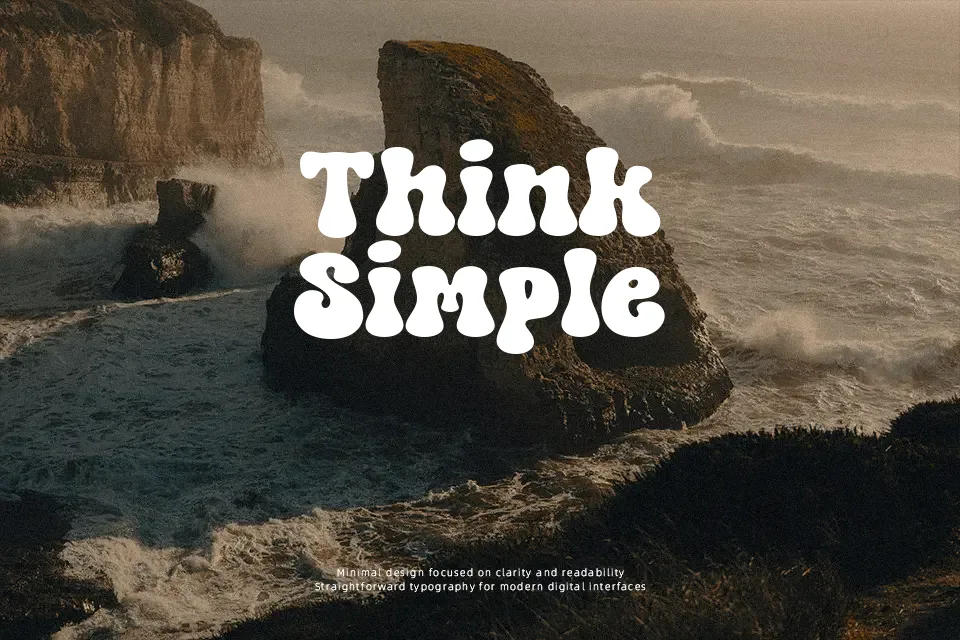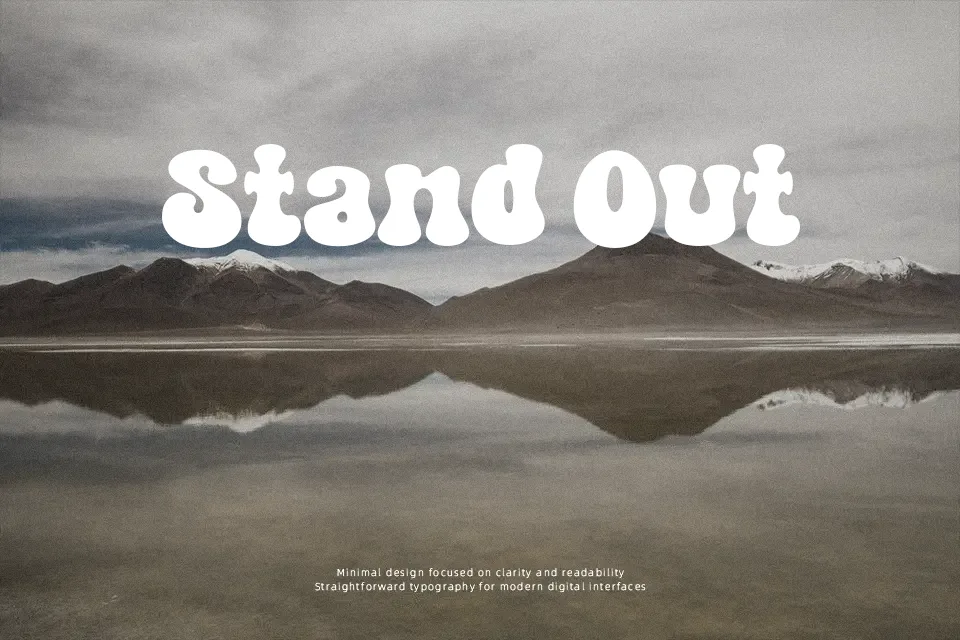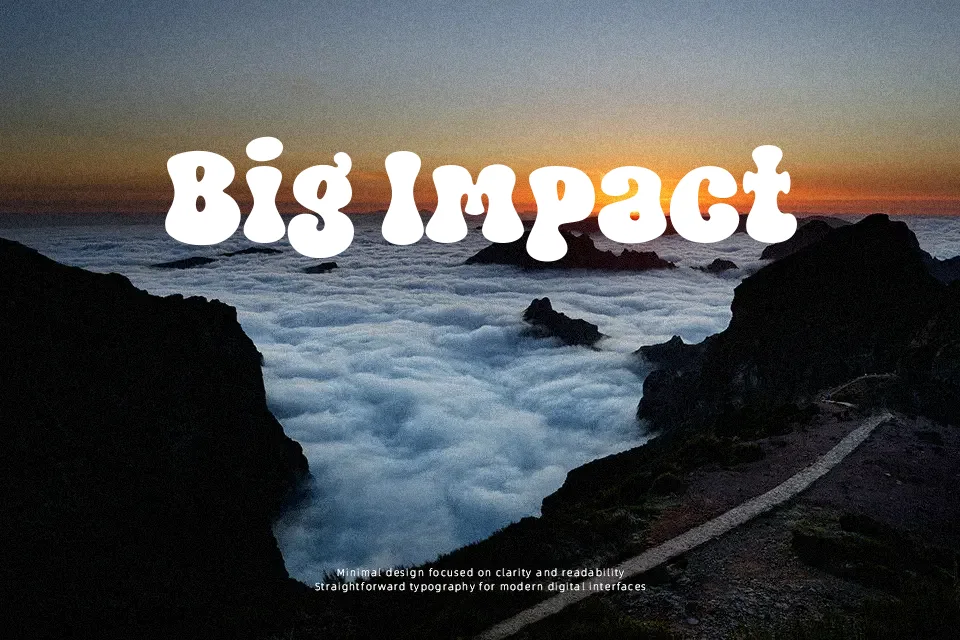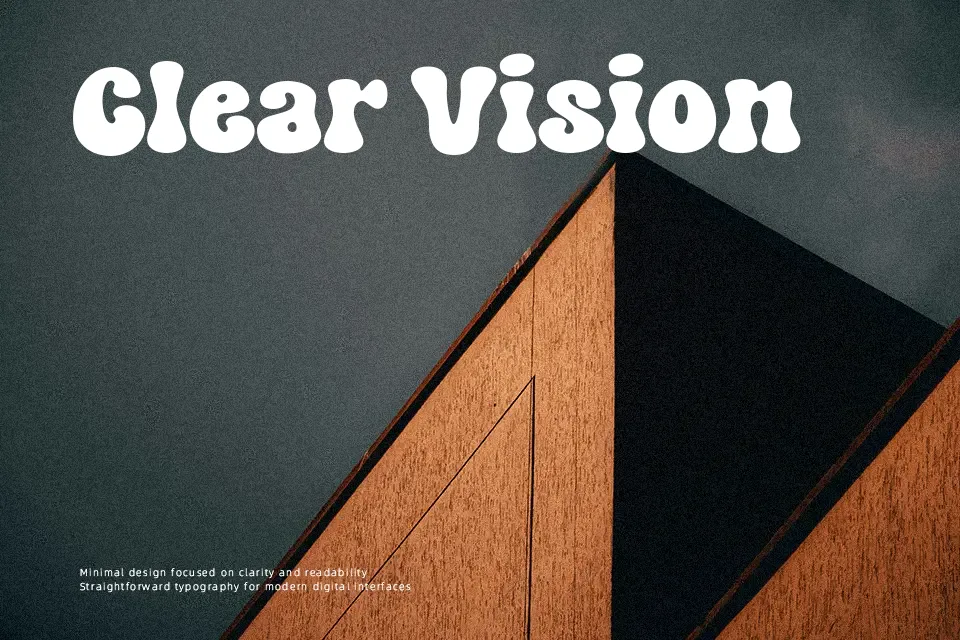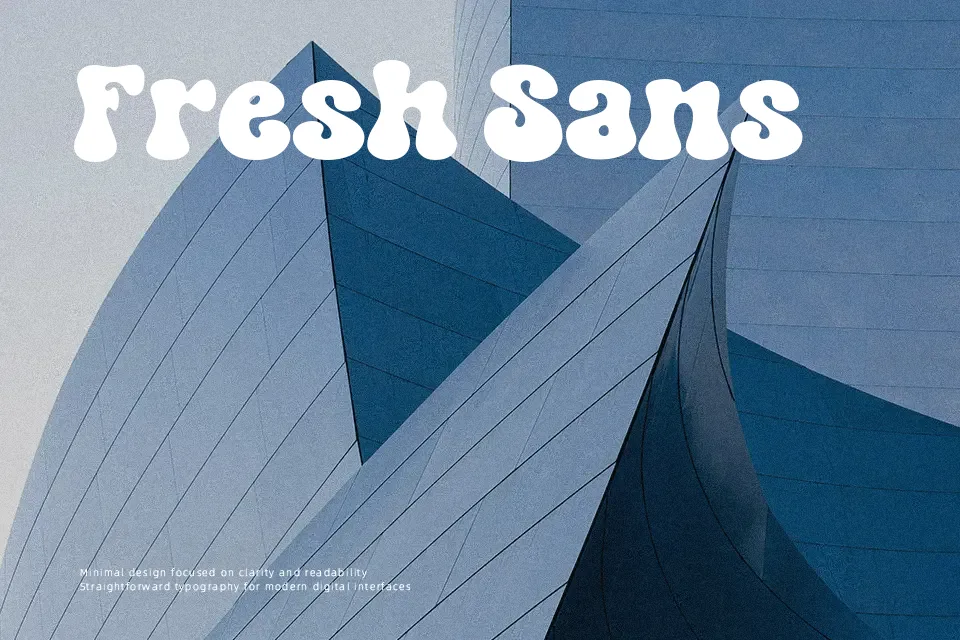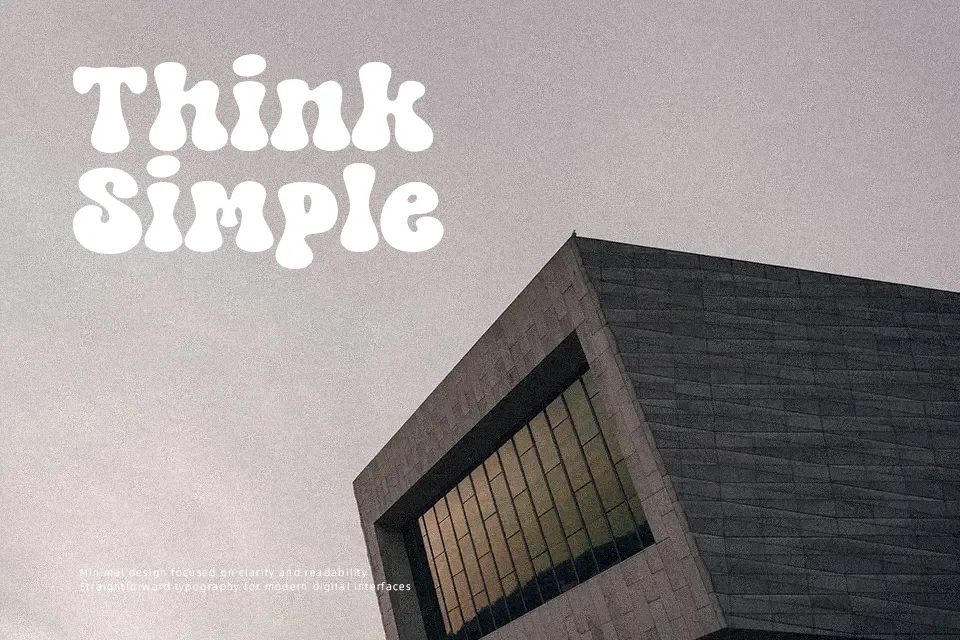
Super Vibes Font
Super Vibes Font works best as a large-scale display face, using thick rounded forms, compact proportions, and a distinctly retro rhythm. The visible letterforms balance smooth curves with substantial strokes, creating strong contrast against simple backgrounds. Spacing appears tight enough to give headlines a dense, unified shape, while the broad counters keep short words recognizable. It fits packaging, posters, stickers, and apparel graphics more naturally than text-heavy layouts. The typeface has enough visual weight to hold attention in a headline, but its decorative personality becomes tiring in extended reading and can reduce clarity in small captions.
Best For: retro product packaging,apparel graphics,music poster headlines,sticker designs
Perfect for fashion, headline, and logo, with a bold and decorative style.